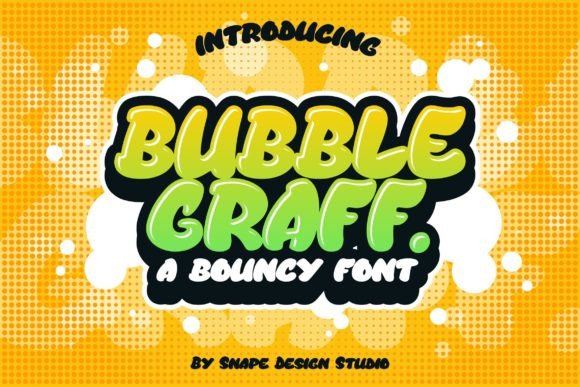
Dive into a world of vibrant expression with Bubble Graff Font – the ultimate display font that captures the essence of joy, creativity, and authenticity. Unleash your imagination and let your projects radiate with this extraordinary font, perfect for children's activities, school projects, and any endeavor that demands a touch of playfulness.
Bubble Graff isn't just a font; it's an explosion of personality. Its thick, bubbly letters exude a sense of fun and energy, making it the ideal choice for captivating children's attention. Whether you're crafting invitations for a birthday bash, designing posters for a school play, or creating worksheets for a classroom, Bubble Graff transforms ordinary text into an extraordinary visual delight.
Step into a realm of limitless possibilities with Bubble Graff. It's not just a font; it's an artistic playground where imaginations soar. Let your creative ideas dance on the page as you witness how Bubble Graff elevates them to new heights. Experience the satisfaction of watching your projects come alive with a font that speaks volumes about your dedication to excellence.